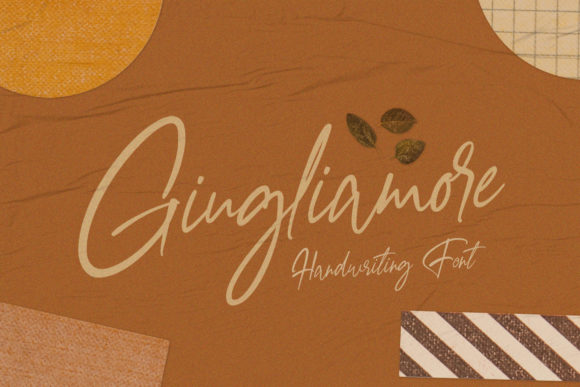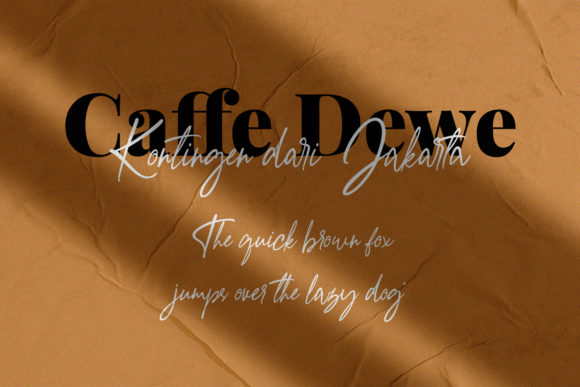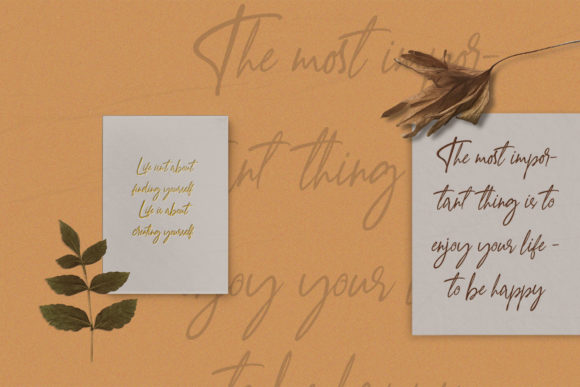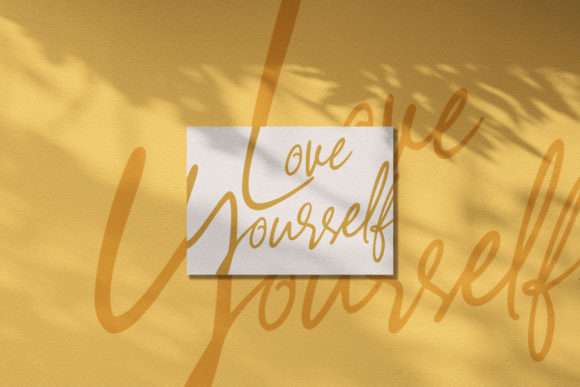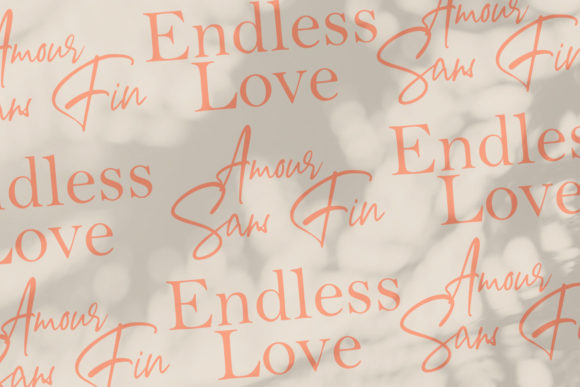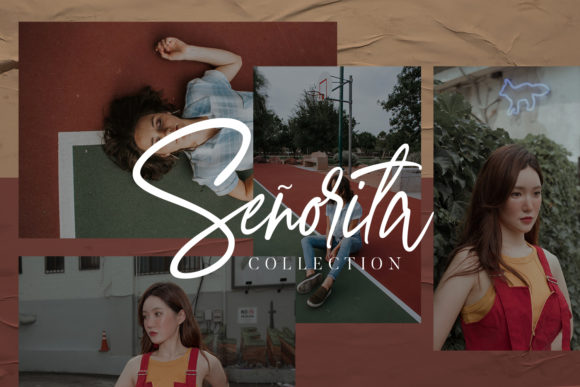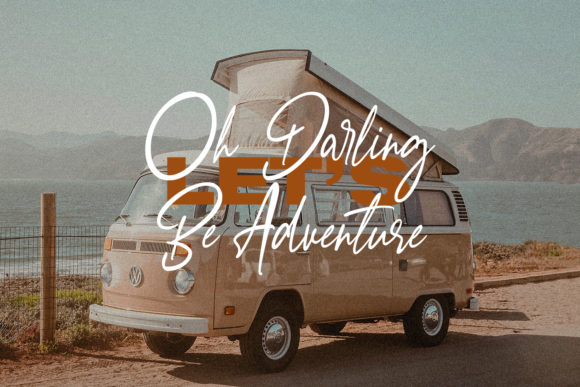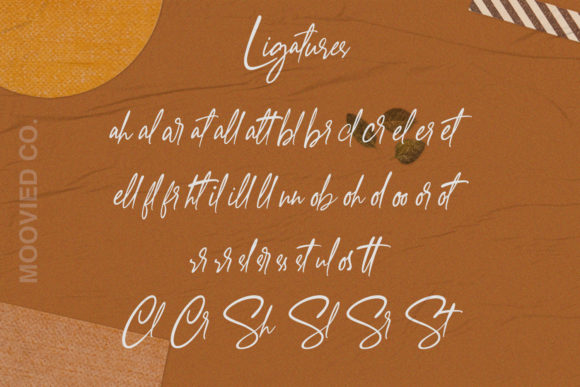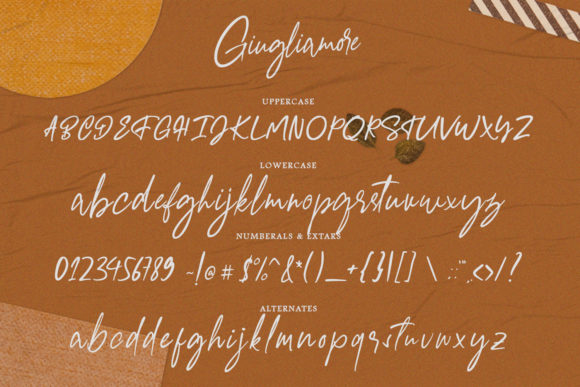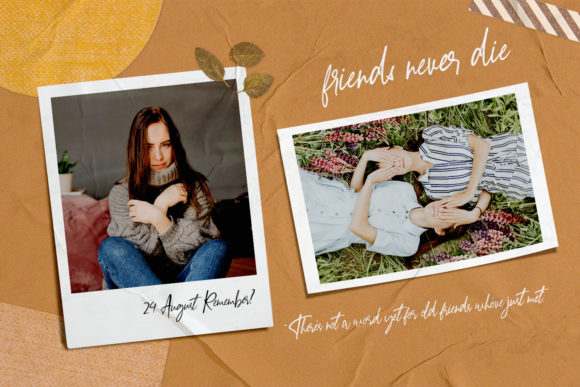
Giugliamore Font
About Giugliamore Font
Giugliamore is a modern hand-written signature font perfect for branding and displays. Use it to make your project stand out with unique character.